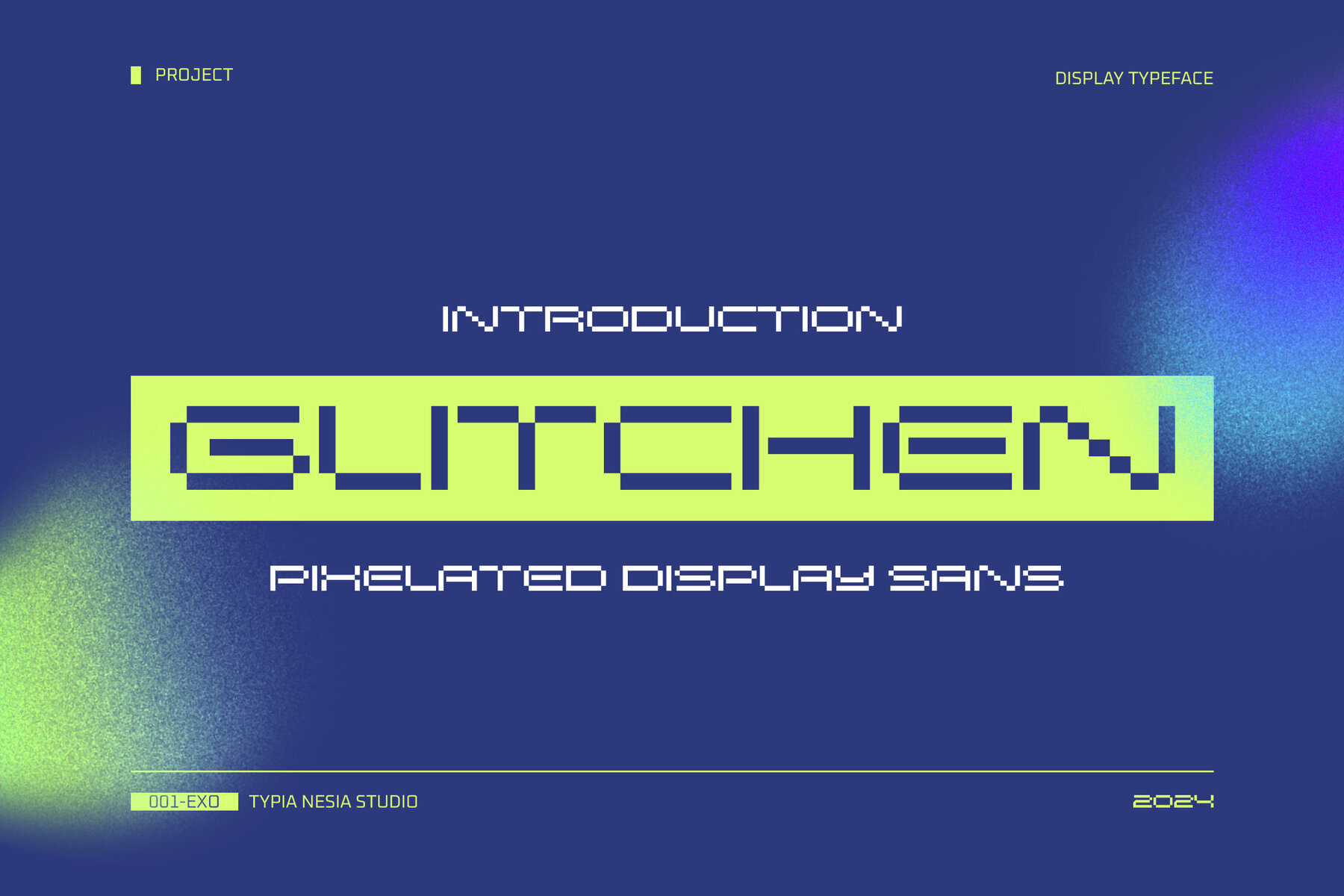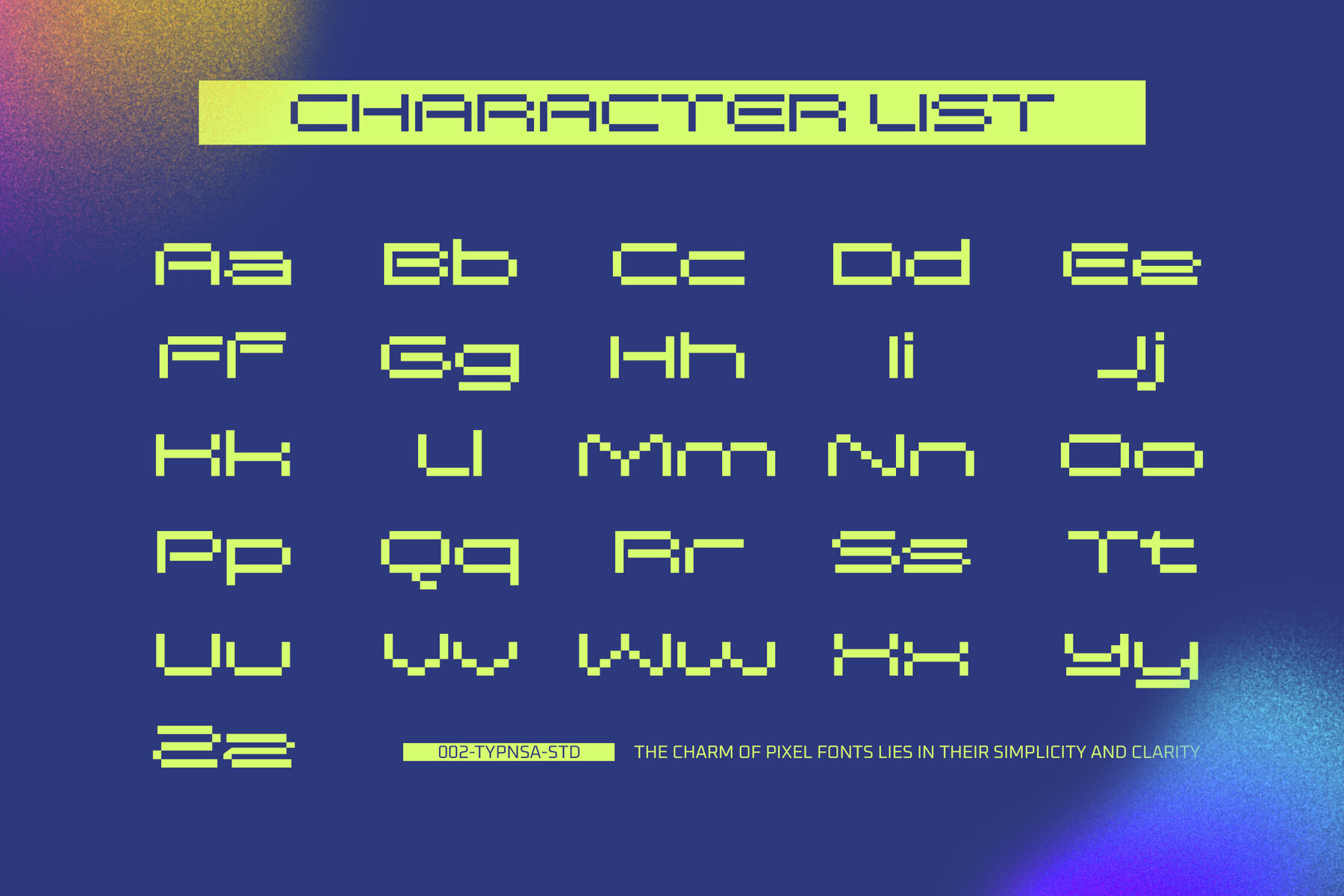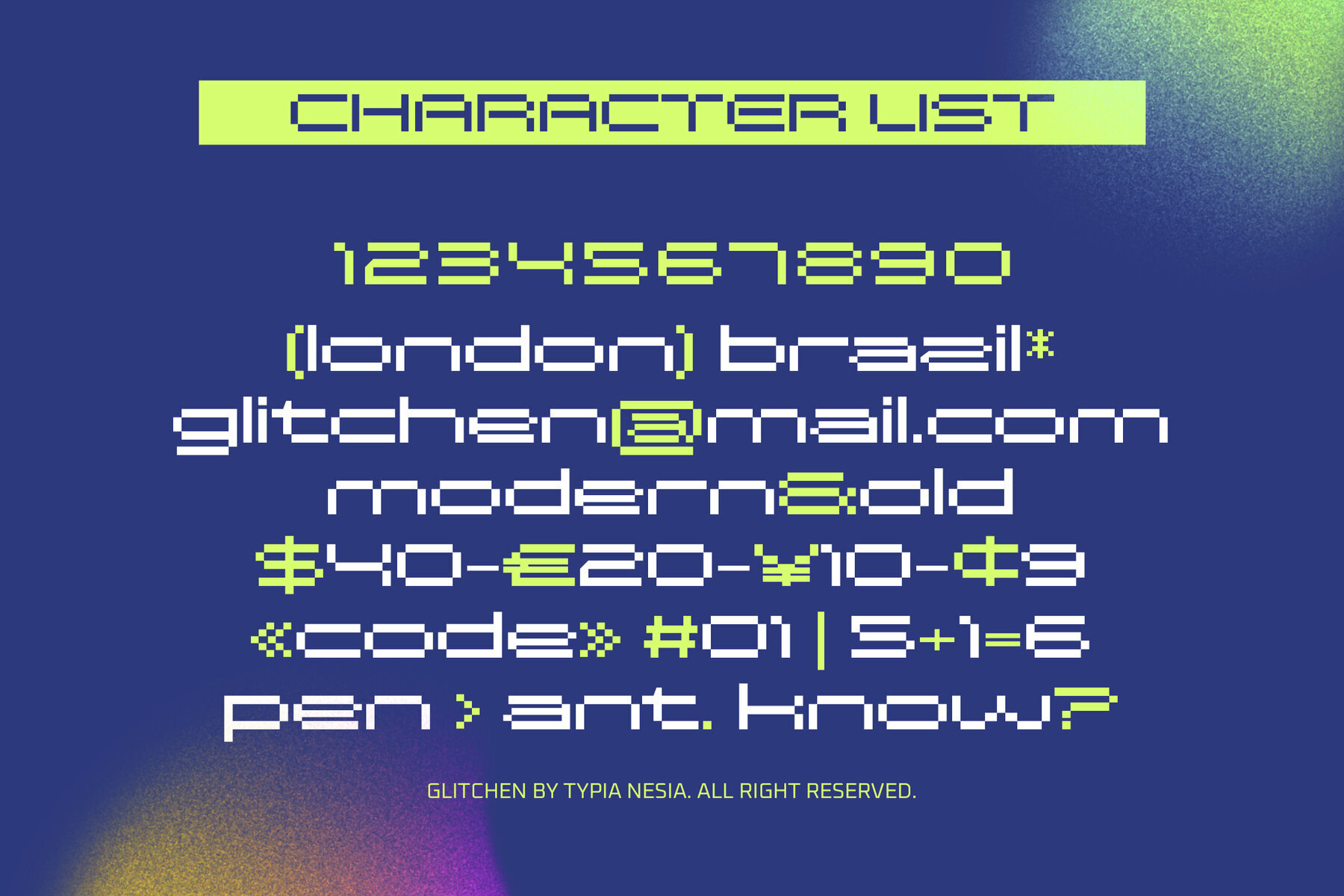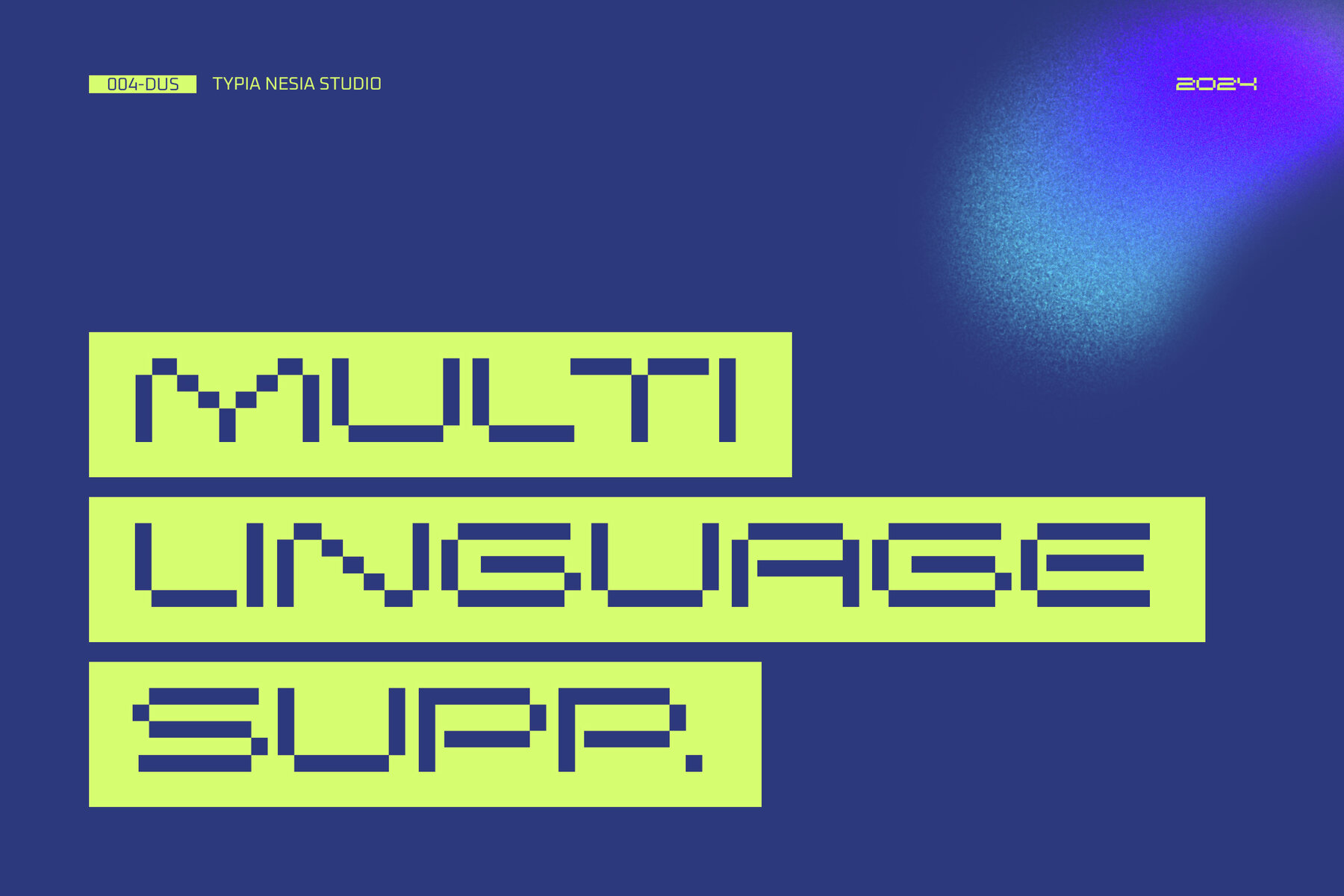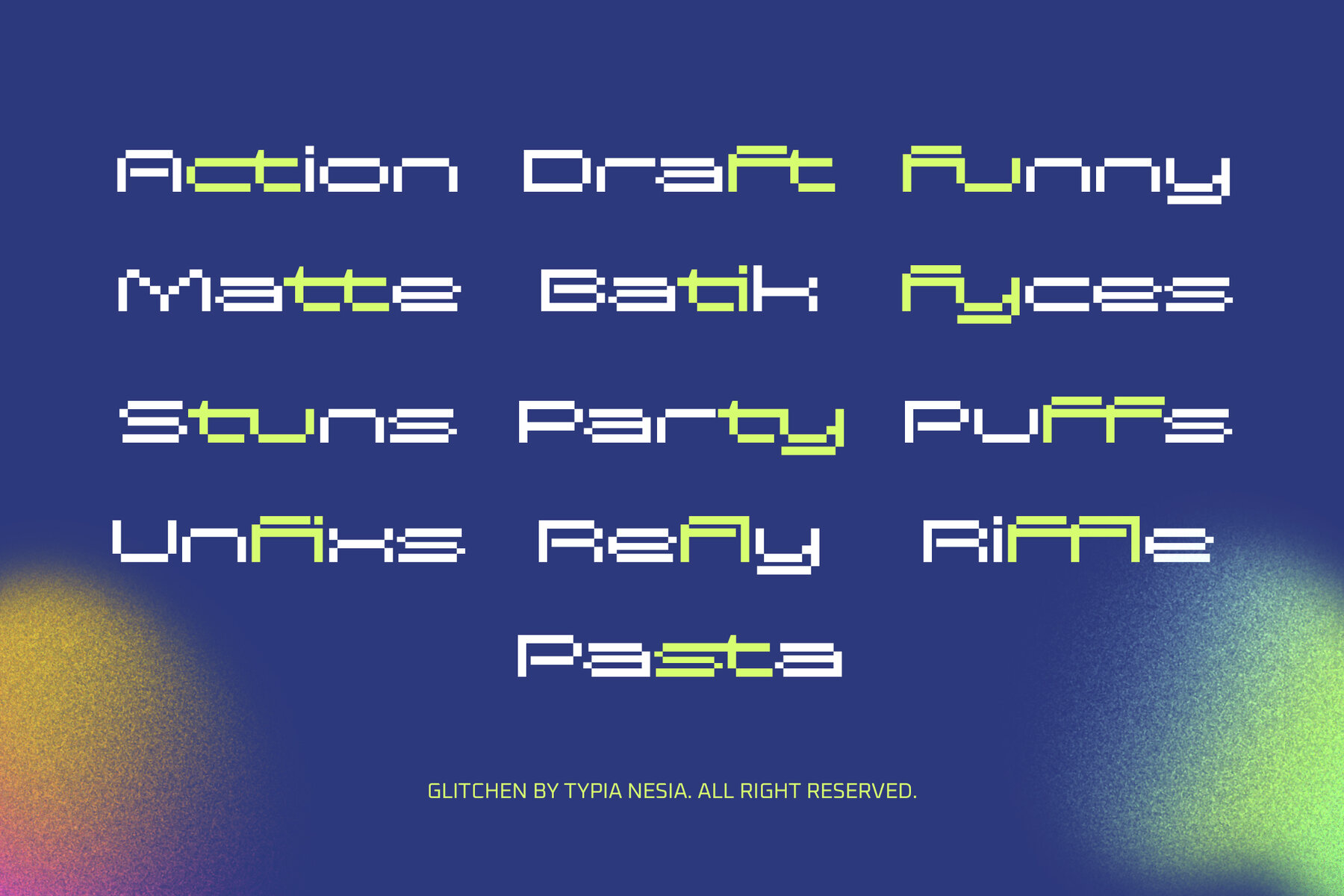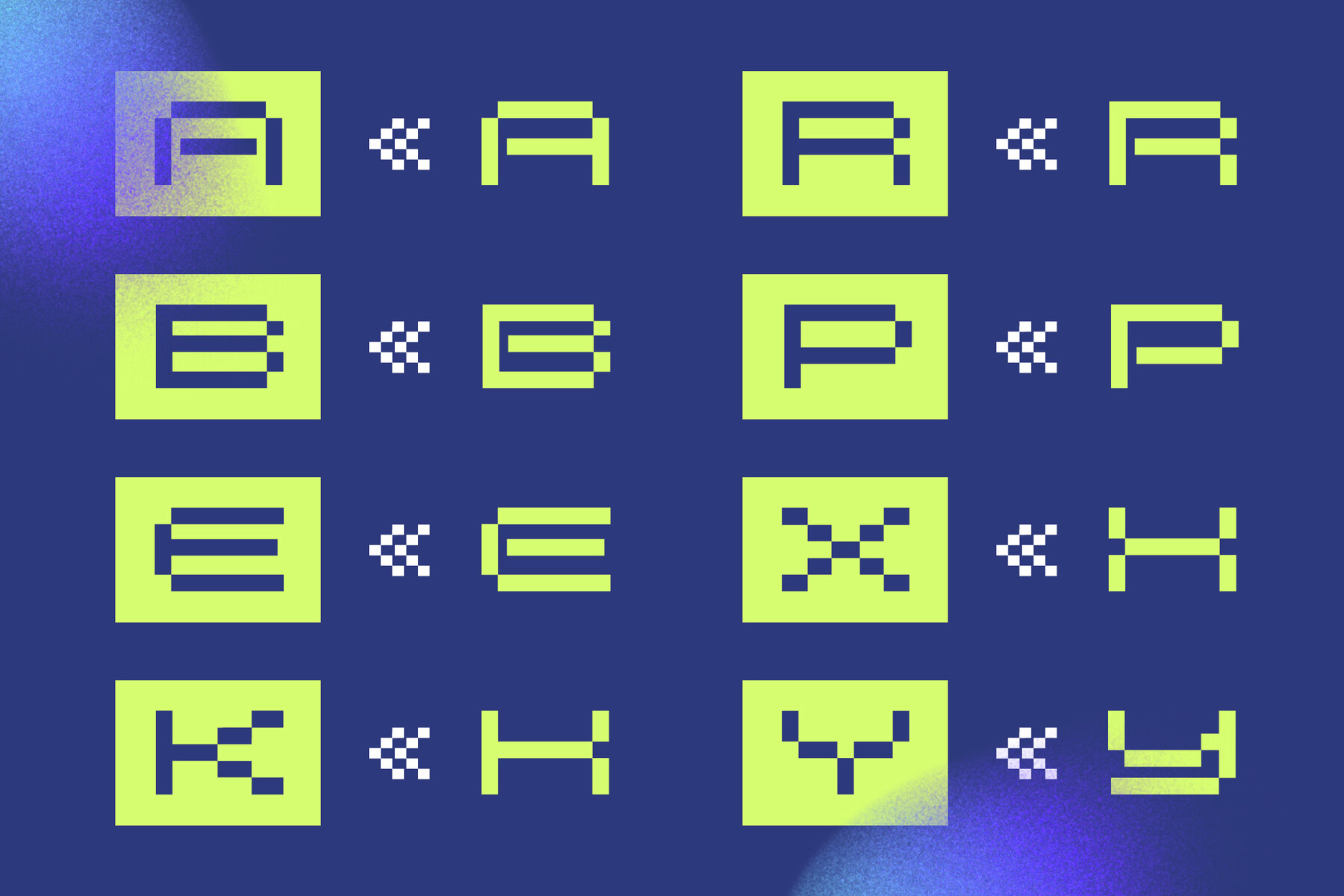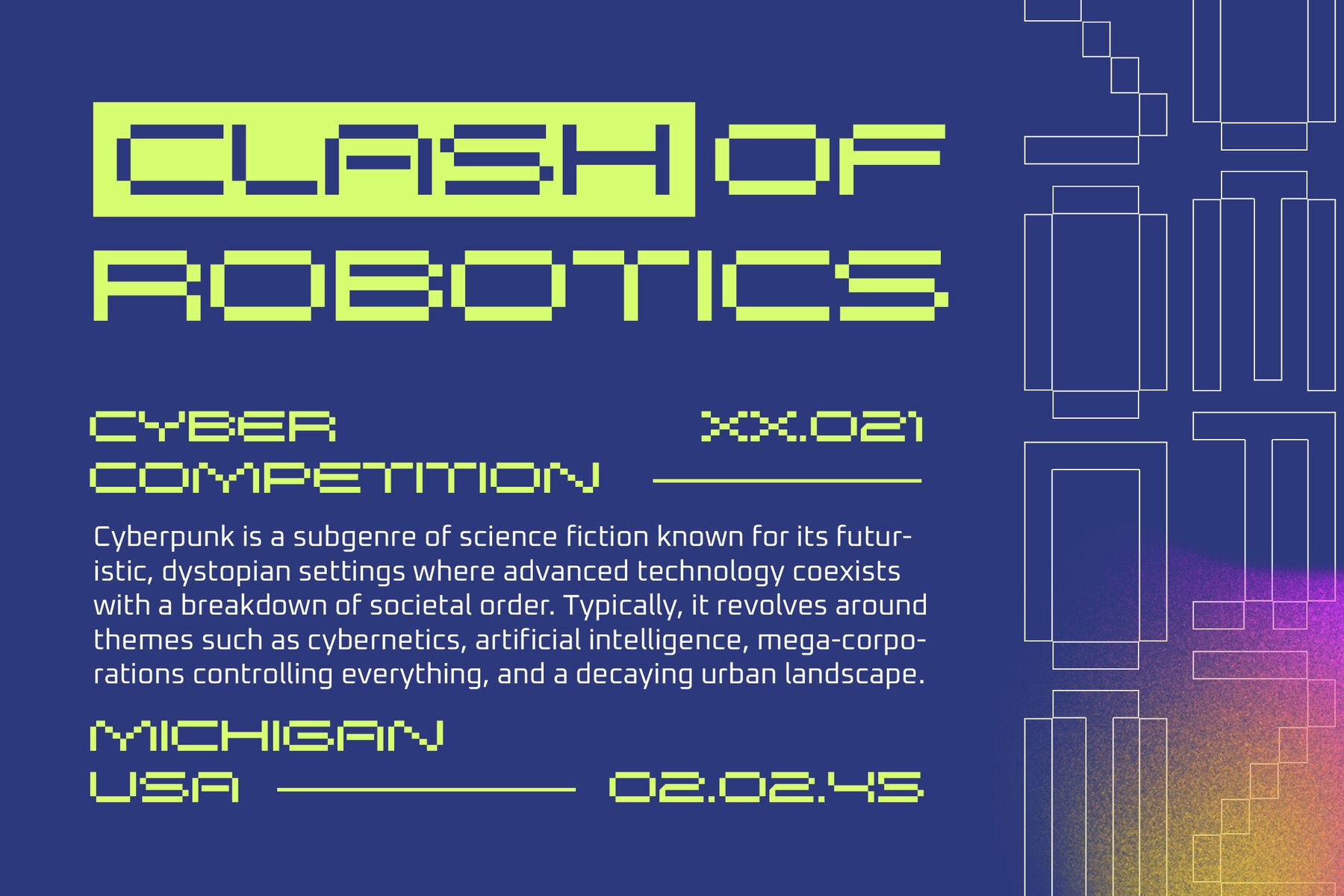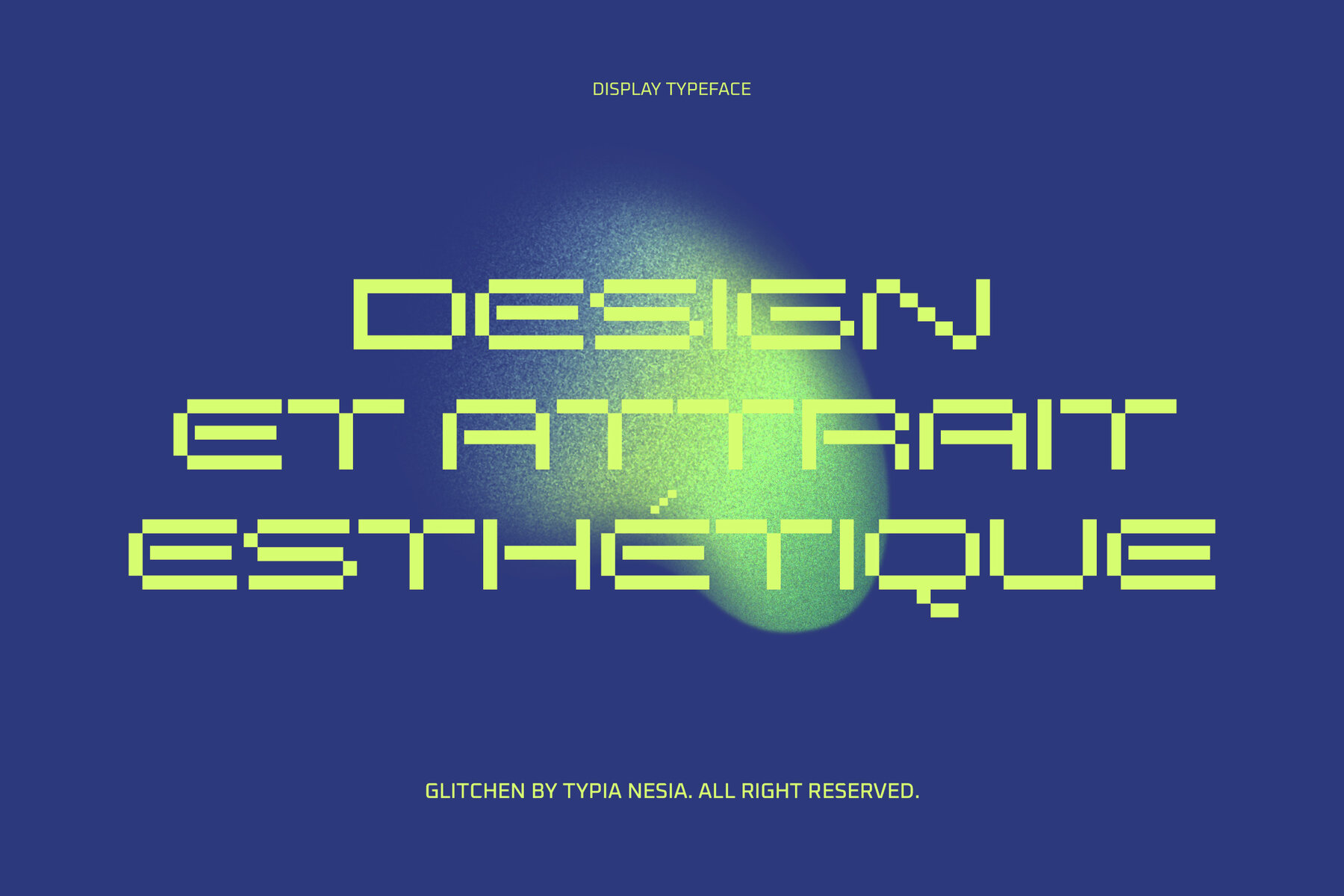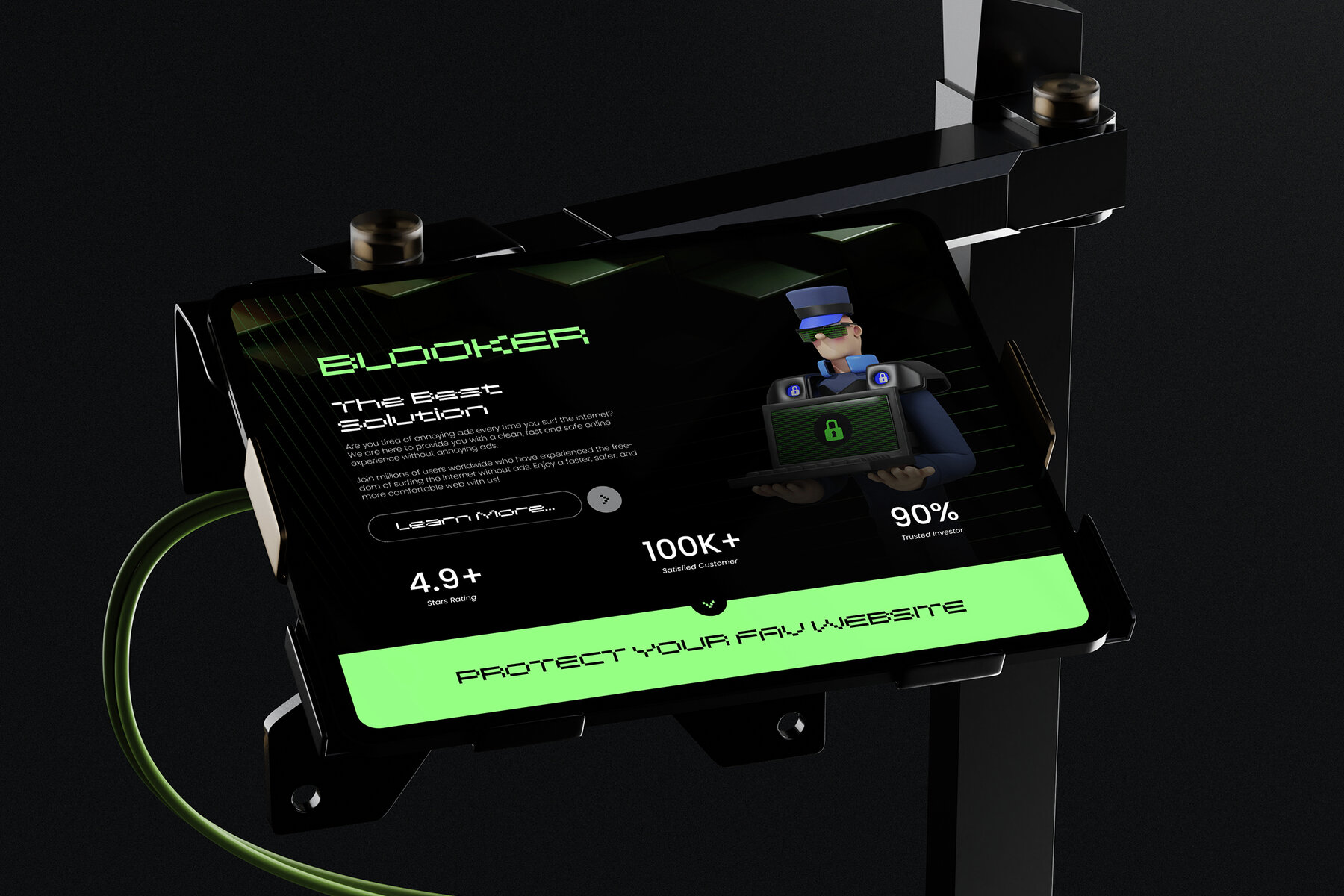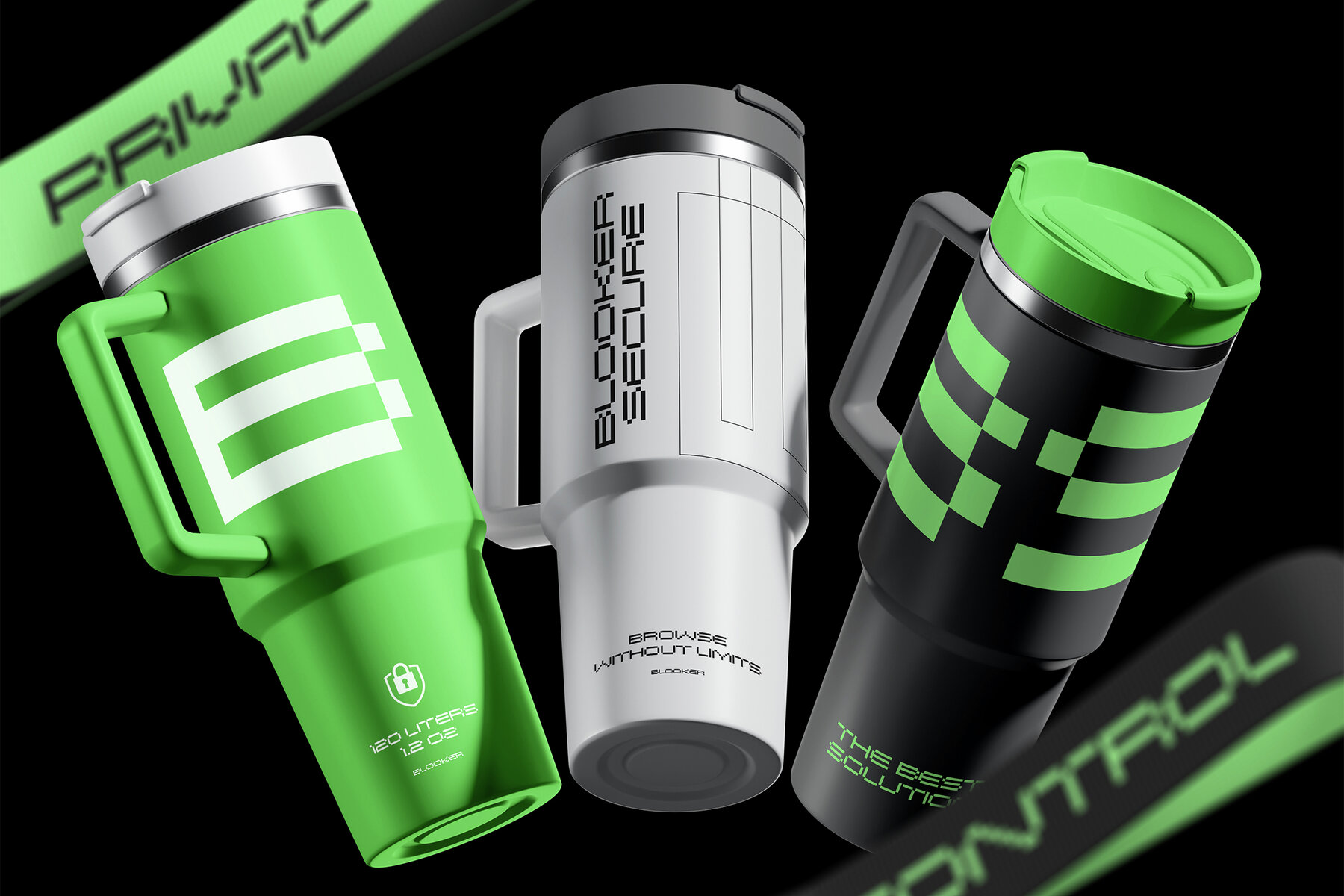
Glitchen Font
Glitchen Regular
Discover the bold and dynamic appeal of this pixelated display sans font that marries futuristic flair with retro 8-bit aesthetics. Its glitch-inspired design infuses energy and movement, making it perfect for sports branding, gaming interfaces, digital platforms, tech logos, esports insignias, and futuristic posters. This font offers versatility with uppercase and lowercase characters, punctuation, numerals, and multilingual support, ensuring a seamless integration into any creative project that demands a digital and competitive atmosphere.
Designed with a pixel-perfect approach, this font features a clean and edgy look characterized by its glitch-filled aesthetic. It brings a sense of digital excitement and futuristic action to your work, making it ideal for those designing competitive sports games or digital ad campaigns. Enhance your designs with a modern, tech-savvy vibe that stands out. This font is the perfect choice for infusing a project with a futuristic and digital edge, solidifying its place in the contemporary design landscape.